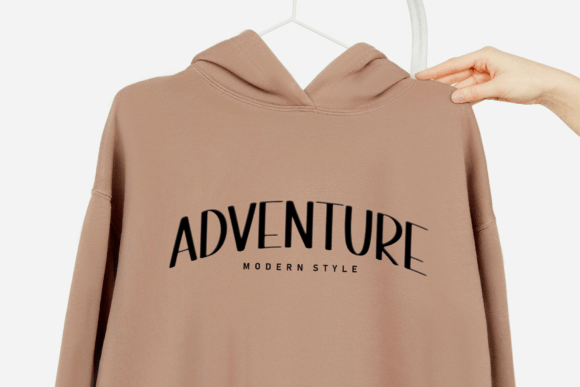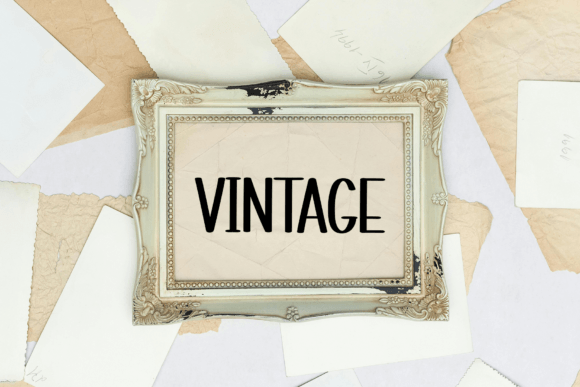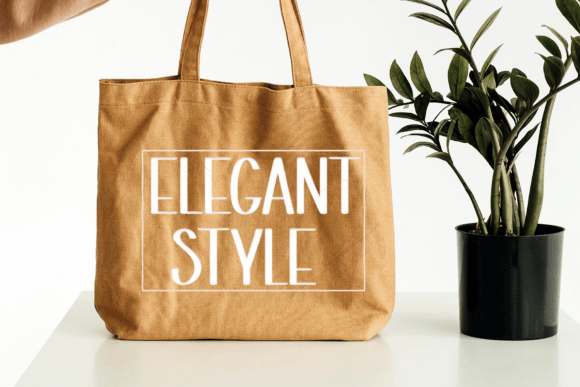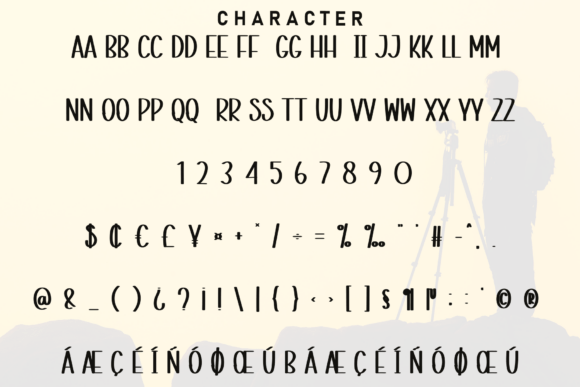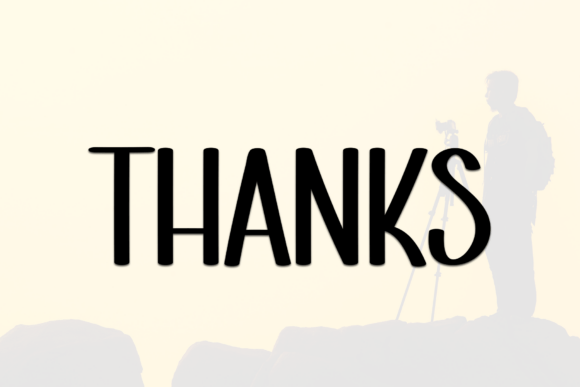
Introduction to Opentrip Font
You’ve spent hours perfecting your creative project, pouring your heart and soul into every detail. But sometimes, all it takes is one small tweak to elevate your design from good to great. That’s where the Opentrip Font comes in – a game-changing typography solution that’s sure to make your text stand out.
Imagine being able to add a touch of sophistication and elegance to your posters, logos, or social media graphics with just a few clicks. The Opentrip Font is a high-quality, modern display font that’s perfect for making a statement and grabbing attention. With its clean lines and strong presence, it’s a valuable design resource that’s sure to give your creative project a fresh, stylish look.
Key Features of Opentrip Font
- High-quality design resource with a transparent background, perfect for creative projects
- Unique characteristics: modern, minimalist design with clean lines and geometric shapes
Honest Review: Opentrip Font
I recently stumbled upon the Opentrip Font while searching for a unique design resource to elevate my creative project. I was excited to dive in and see what it had to offer.
- High-quality design: The Opentrip Font boasts clean lines, elegant typography, and a sophisticated feel that’s perfect for modern designs.
- Transparent background: The font’s transparent background makes it easy to layer and combine with other design elements, giving me endless creative possibilities.
- Limited font styles: While the Opentrip Font offers a range of weights and styles, I found the selection to be somewhat limited compared to other fonts.
- Lack of bold options: I wish the font included more bold options to really make it pop in designs.
Overall, I’m impressed with the Opentrip Font and its potential to elevate my creative project. While it has some limitations, I believe its unique design and transparent background make it a valuable design resource worth exploring.
Opentrip Font is a high-quality design resource ideal for creative projects, including graphic design, digital art, and even print materials. Its transparent background makes it perfect for overlaying on images or using as a standalone element.
To get the most out of Opentrip Font, experiment with different font sizes, colors, and combinations to achieve a unique look. You can also use it in conjunction with other design elements to create visually appealing compositions.
Opentrip Font is commonly used in social media graphics, blog posts, and marketing materials. Its versatility makes it a great addition to any design project, whether you’re creating a logo, poster, or infographic.